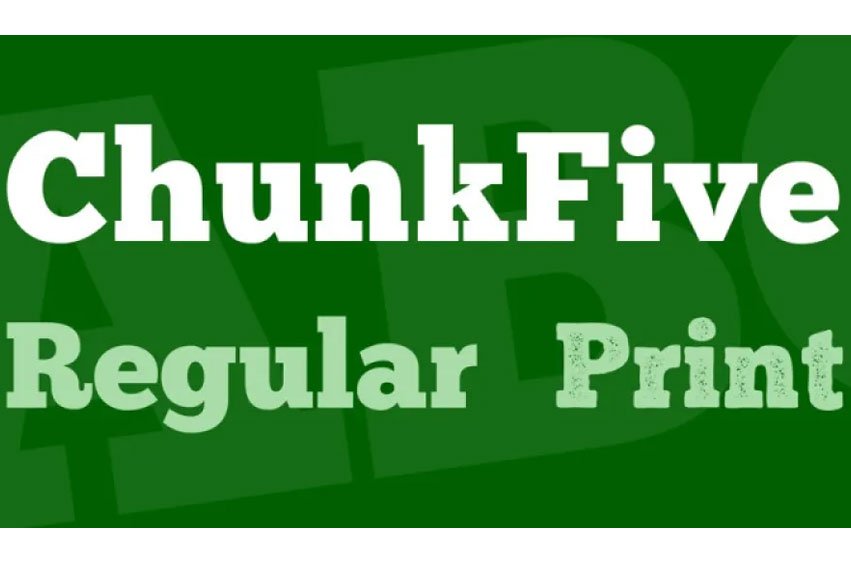
ChunkFive Font is a daring slab serif font family that draws its inspiration from the older American Western woodcuts, broadsides, and newspaper headlines. Originally designed for display purposes, it has a rather coarse character that, however, still looks classy and can be easily used in contemporary designs.
Tyler Finck created an entirely new texture style called Chunk Five Print which incorporates all of the glyphs of the original.